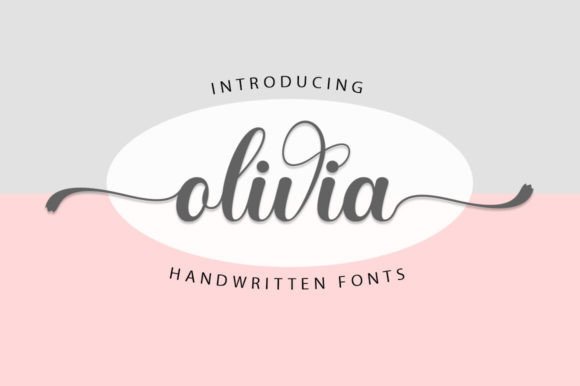
Olivia Font
Olivia sweet handlettered font, casual and dynamic with a dancing baseline. Also available Platipus Sans & Ornaments to help you mix and match it to fit your creative work in harmony. all to add an authentic touch to your designs. perfect for Branding, Logos, Greeting Cards, Wedding Stationery, Quotes etc